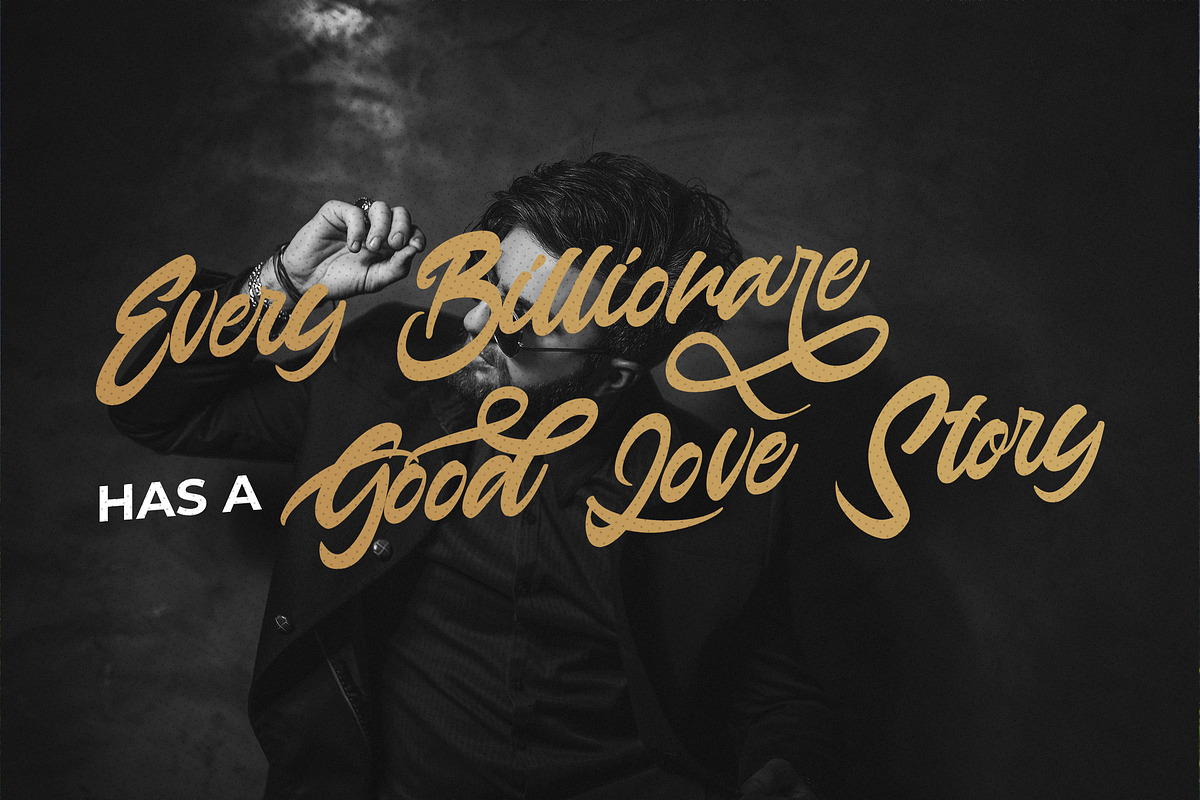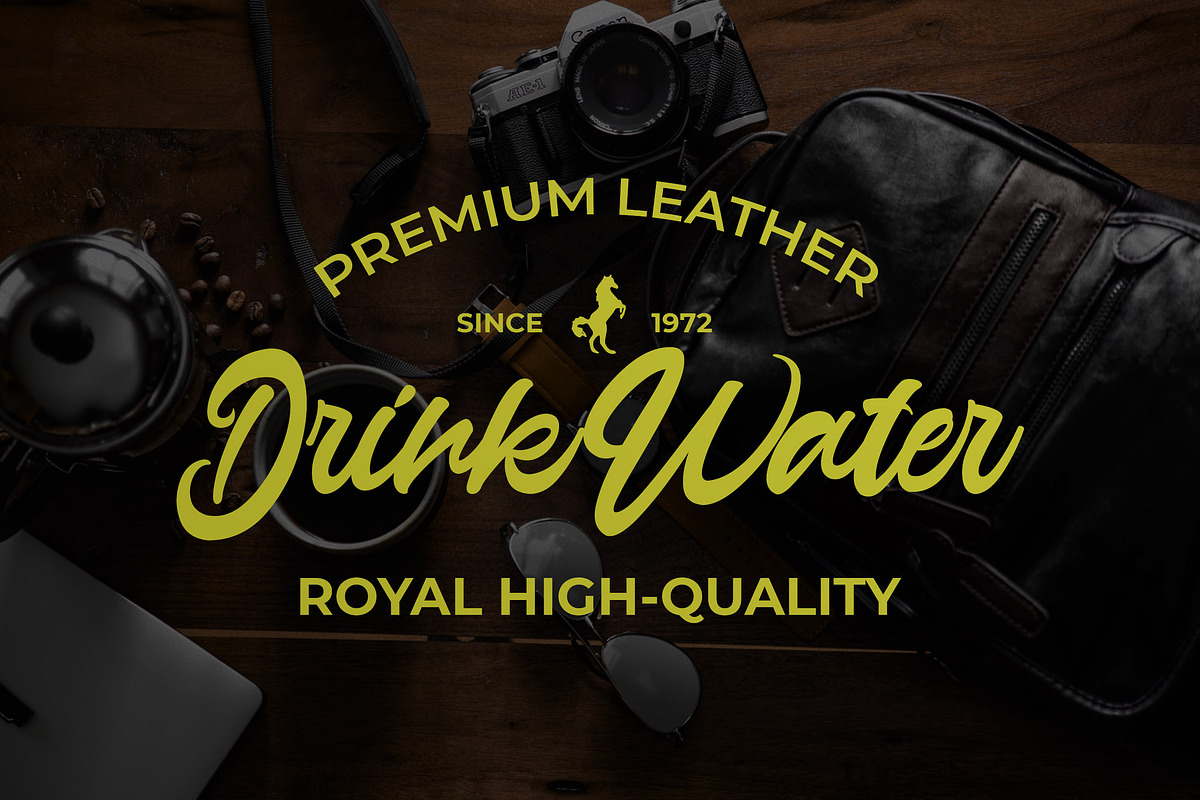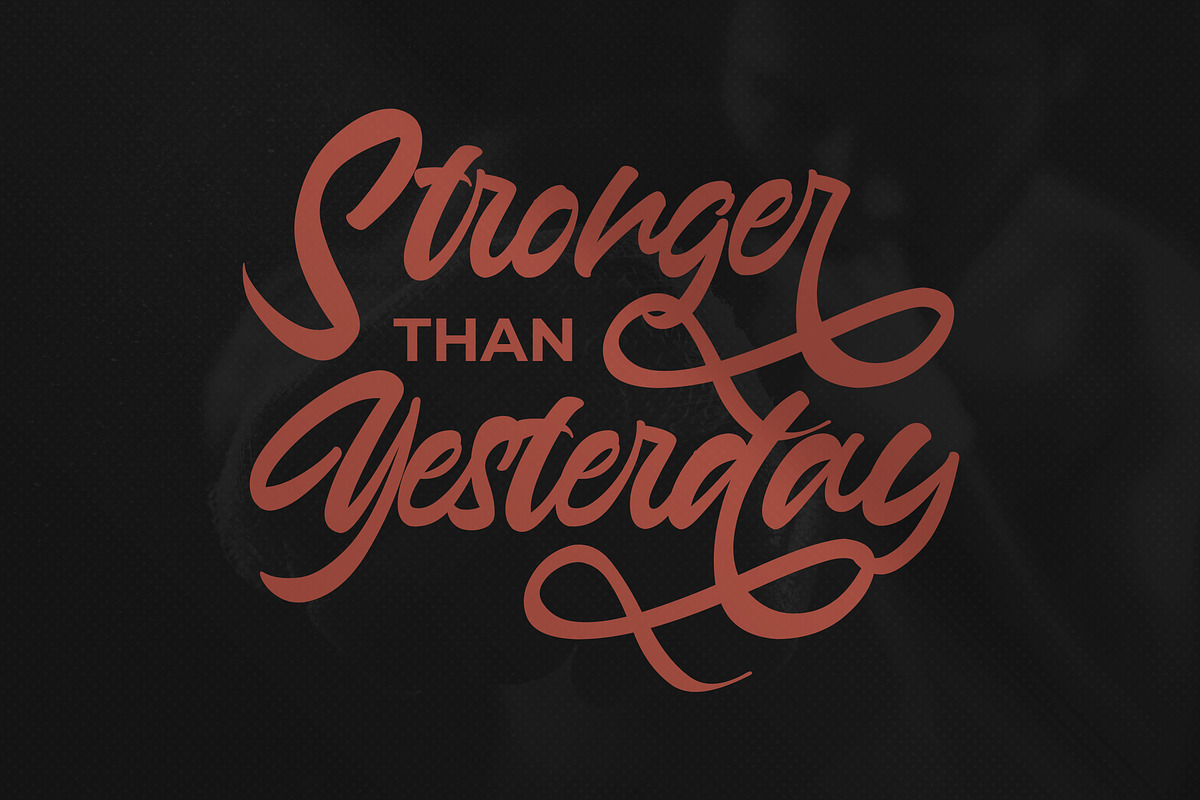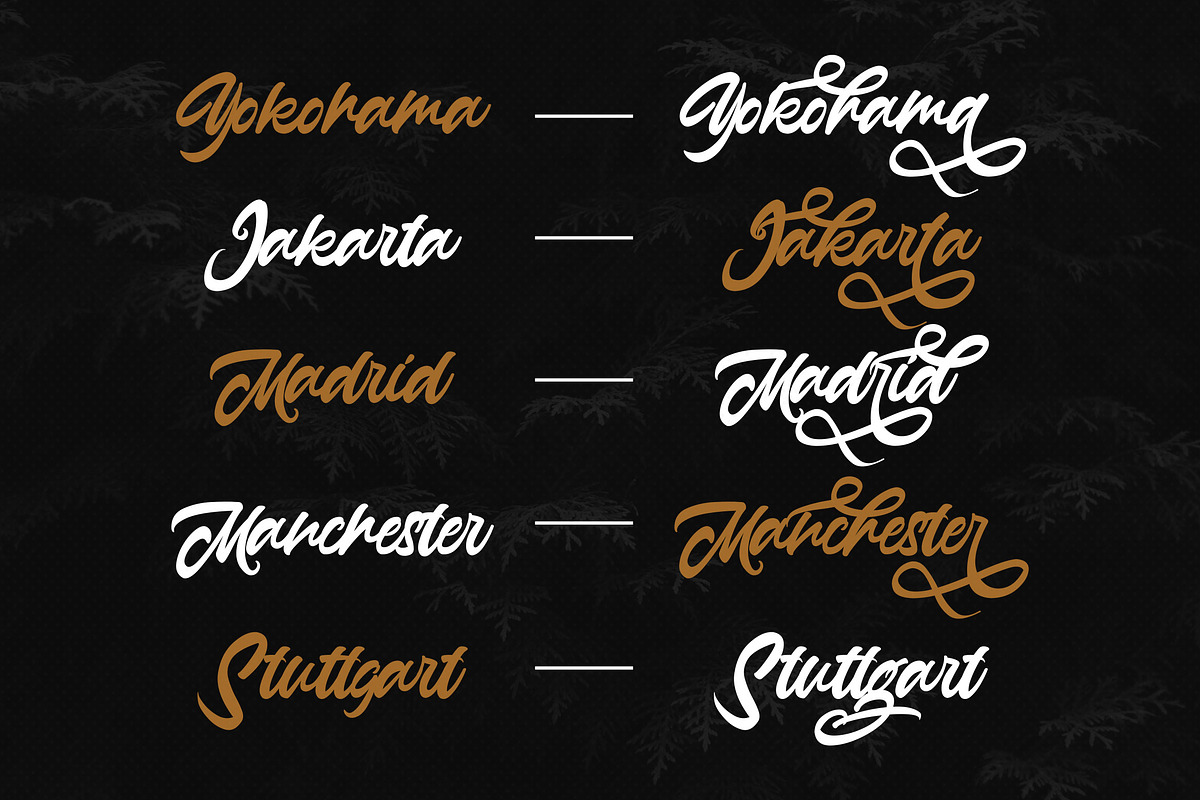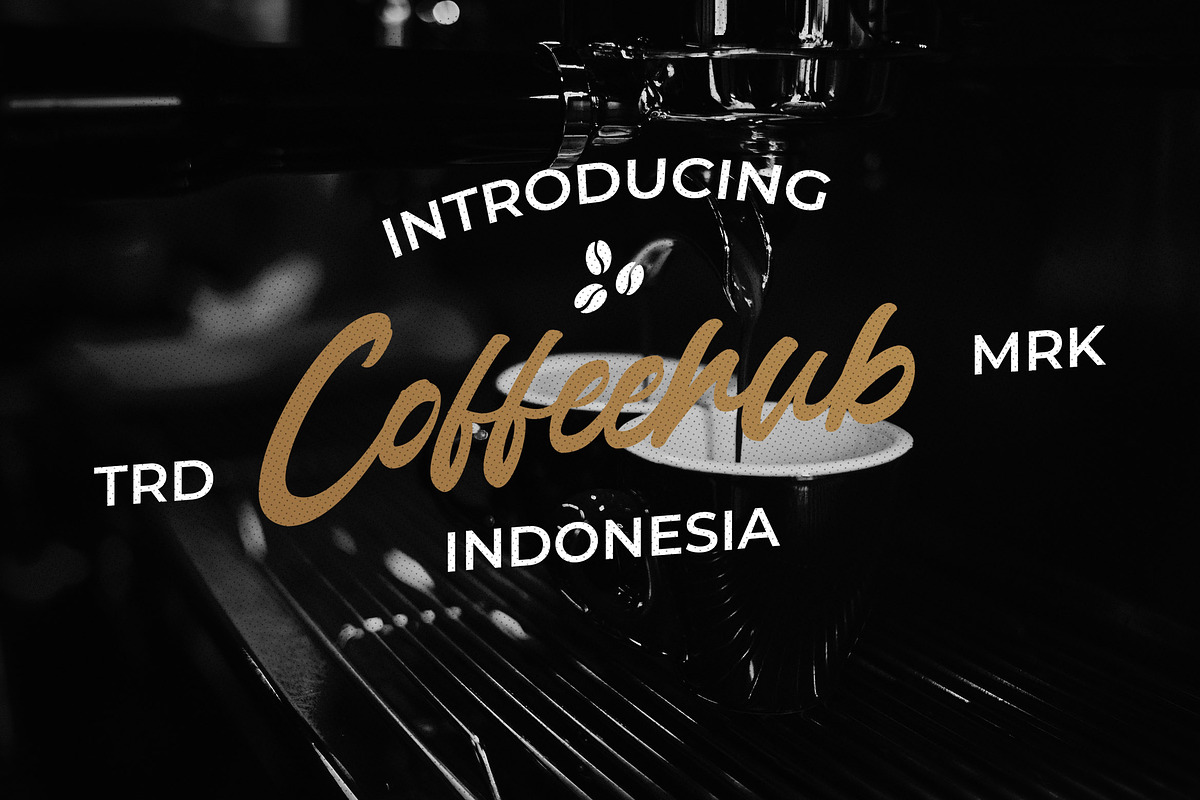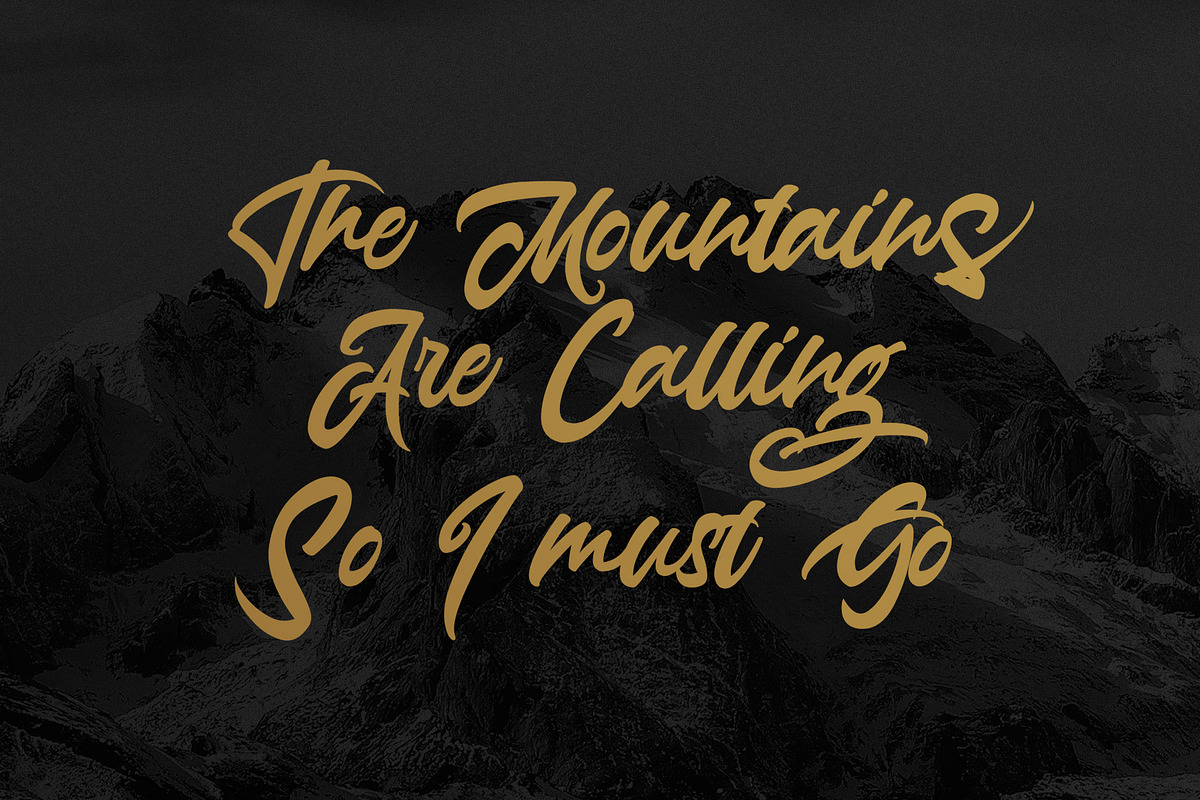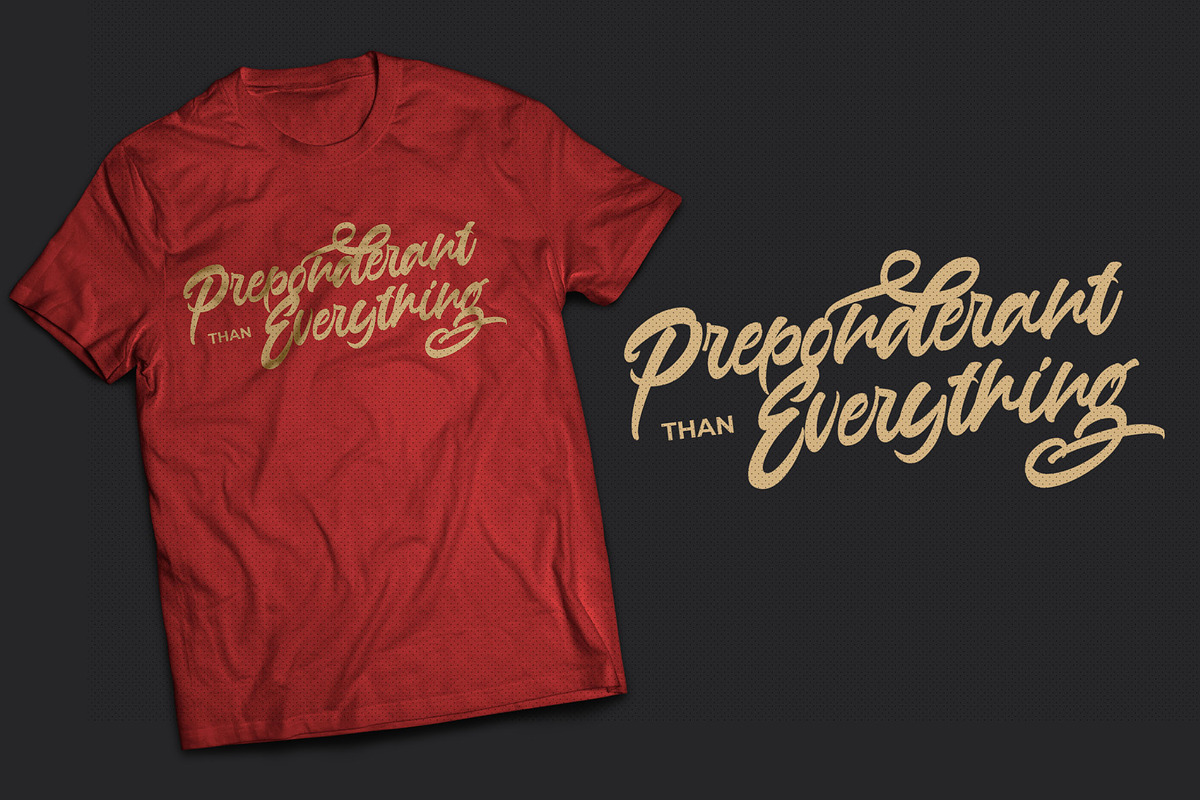
Anasite Malela - Bold Script Font
Introducing Anasite Malela - Bold Script Font
Anasite Malela is a bold script with Groovy Retro style. This font has a unique design taste and combine with classic retro style of the 80s, trendy, vintage, and sporty. Anasite Malela is perfect for hipster lovers, besides this font is also perfect if used for brands such as: barbershop, motorcycle club, clothing, coffee shop, shoe brands, vapor shop, hipster and many more.
- This Font Template contains Classy, Elegant, Creative, Cool and has a Unique Concept.
Anasite Malela - Bold Script Font by StringLabs fits naturally into Branding, posters, packaging, typography.